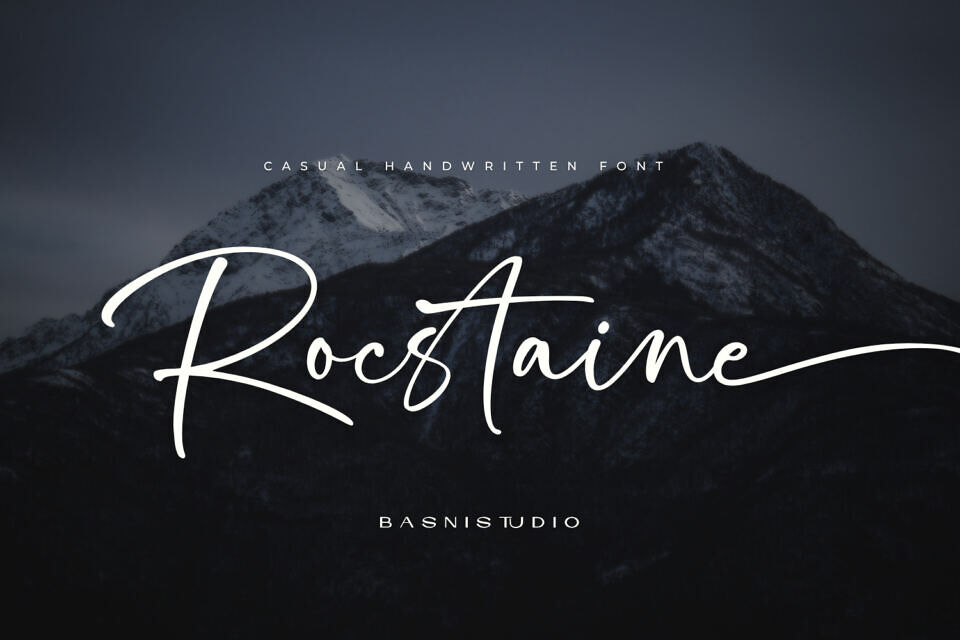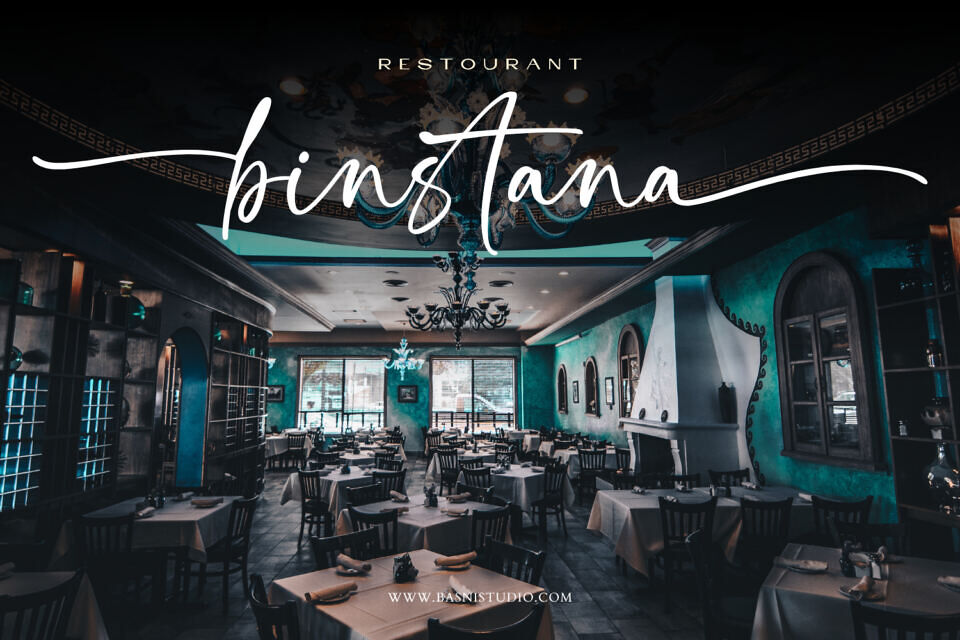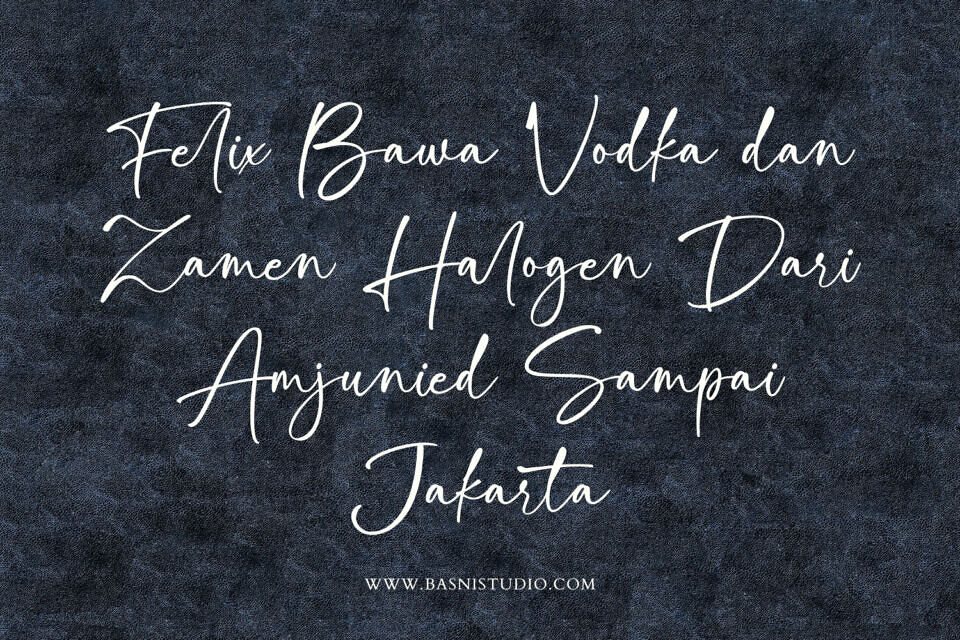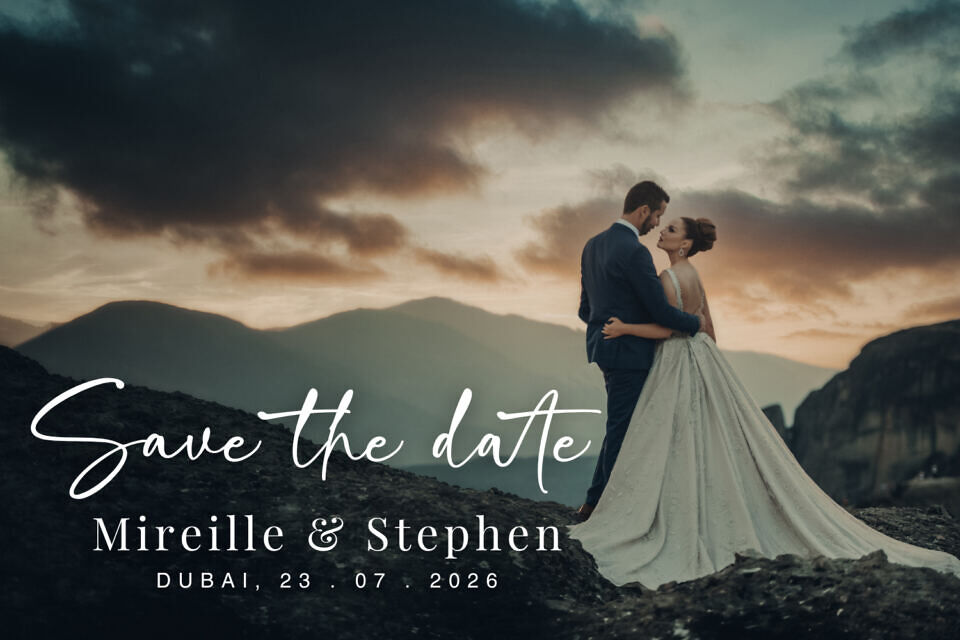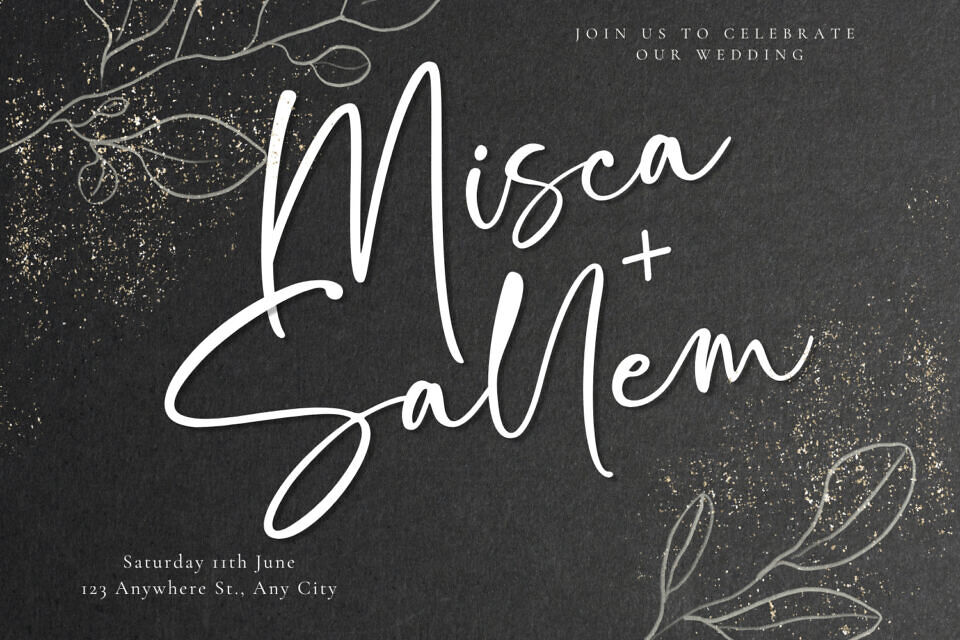
This casual handwriting font is designed to add a personal touch to various projects, from branding to invitations. Created with actual pen strokes, it provides an authentic feel. Compatible with major design programs, it’s easy to use and perfect for quotes, greeting cards, and more, helping you create a unique brand identity or standout design.